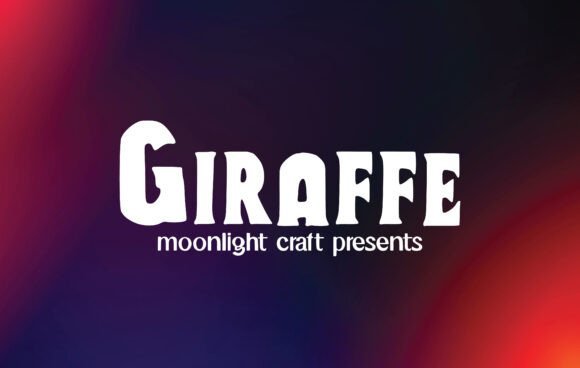
The Ultimate Design Companion: Giraffe Font
Have you ever stared at a blank page, trying to come up with the perfect font to match your creative vision? We’ve all been there. The struggle to find the right balance between style and readability can be overwhelming. But what if you had a go-to favorite font that could elevate your designs and make your life easier?
Enter Giraffe Font, the perfect blend of style and versatility. This beautifully crafted font is designed to work seamlessly for both titles and body text, making it an ideal choice for a wide range of creative projects. Whether you’re designing magazine headlines, social media posts, or wedding invitations, Giraffe Font is sure to become a valuable addition to your design arsenal.
Giraffe Font Key Features
- Font Family: Giraffe Font is a sans-serif font family, designed for optimal readability and versatility.
- Unique Characteristics: Features an unconventional, hand-drawn aesthetic with distinctive line variations and subtle texture, adding a touch of personality to designs.
Giraffe Font Review
When I first laid eyes on the Giraffe Font, I was immediately drawn to its playful and quirky vibe. ✨ The unique, rounded shapes and eclectic style are sure to add a touch of whimsy to any design project.
- ✨ The font’s bold and expressive nature makes it perfect for headings and titles.
- ✨ The variety of weights and styles available means you can easily customize the font to fit your design needs.
- ✨ The font’s hand-drawn feel adds a touch of personality and character to any design.
- ⚠️ The font may not be suitable for body text, as it can be difficult to read at smaller sizes.
- ⚠️ The font’s eclectic style may not be to everyone’s taste, so it’s essential to use it thoughtfully and in context.
- ⚠️ Some characters may not be as smooth or polished as others, which can detract from the overall design.
Overall, I think the Giraffe Font is a fun and creative choice for designers looking to add some personality to their projects. While it may have its limitations, the right project can really showcase its unique charm.
Here are some tips to help you get the most out of the Giraffe Font:
- Experiment with different font sizes and styles to achieve the desired visual effect.
- Use the Giraffe Font in conjunction with other fonts to create a unique and eye-catching design.
- Take advantage of the font’s versatility by using it in a variety of design contexts, such as logos, headings, and body text.
The Giraffe Font is particularly well-suited for:
- Children’s book illustrations and design.
- Logo design for kids